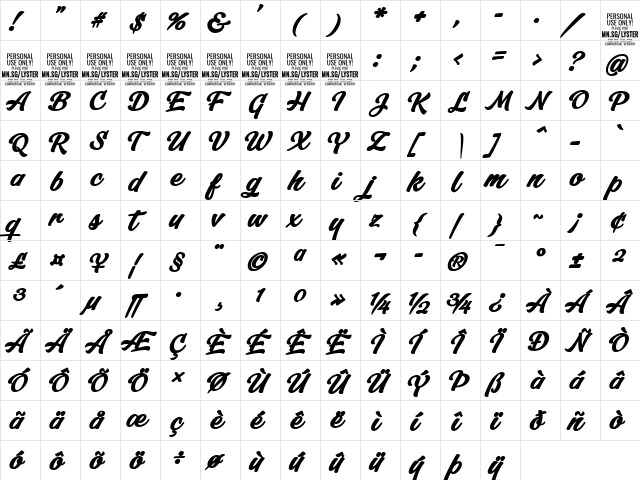
Lyster Bold PERSONAL USE ONLY Regular
| Foundry | Mans Greback |
| Designer | Mans Greback |
Design Context for Lyster Bold PERSONAL USE ONLY Typeface
Lyster Bold PERSONAL USE ONLY is a composed and adaptable typeface that performs quietly and consistently across a wide range of design contexts. The heavy weight commands attention and anchors typographic hierarchies.